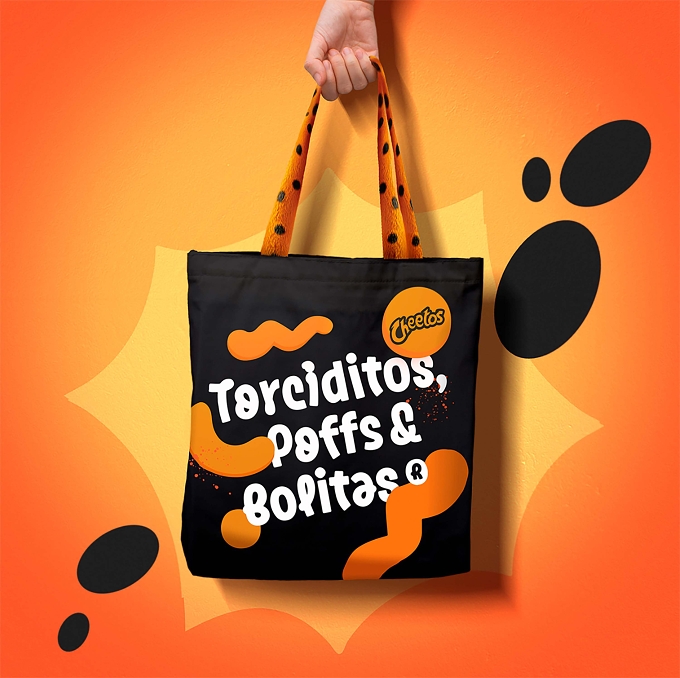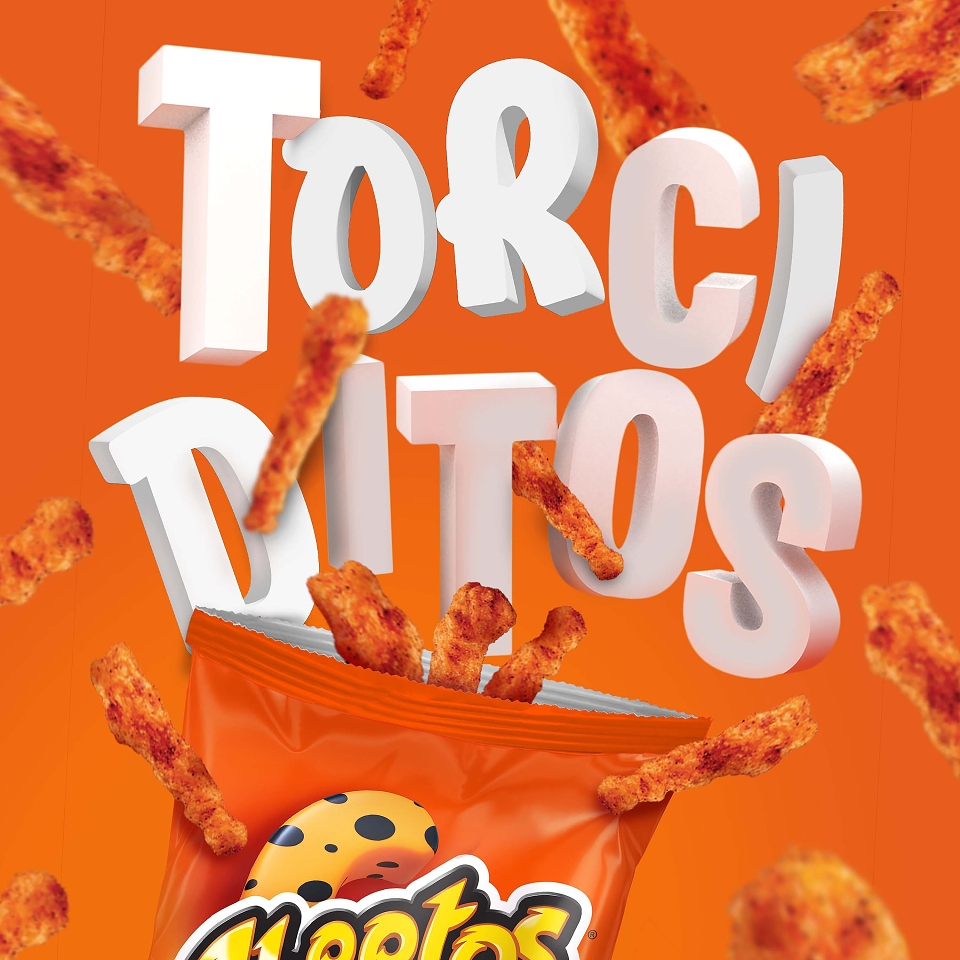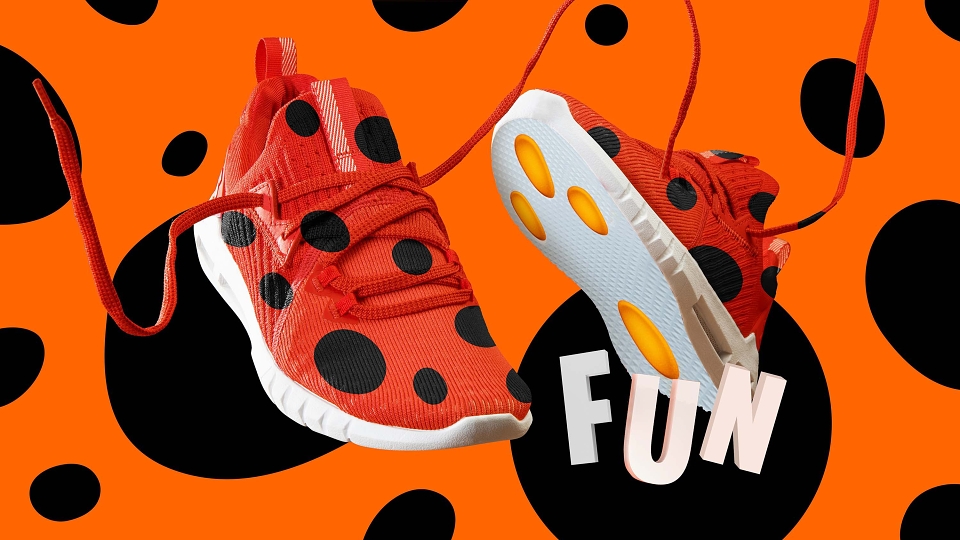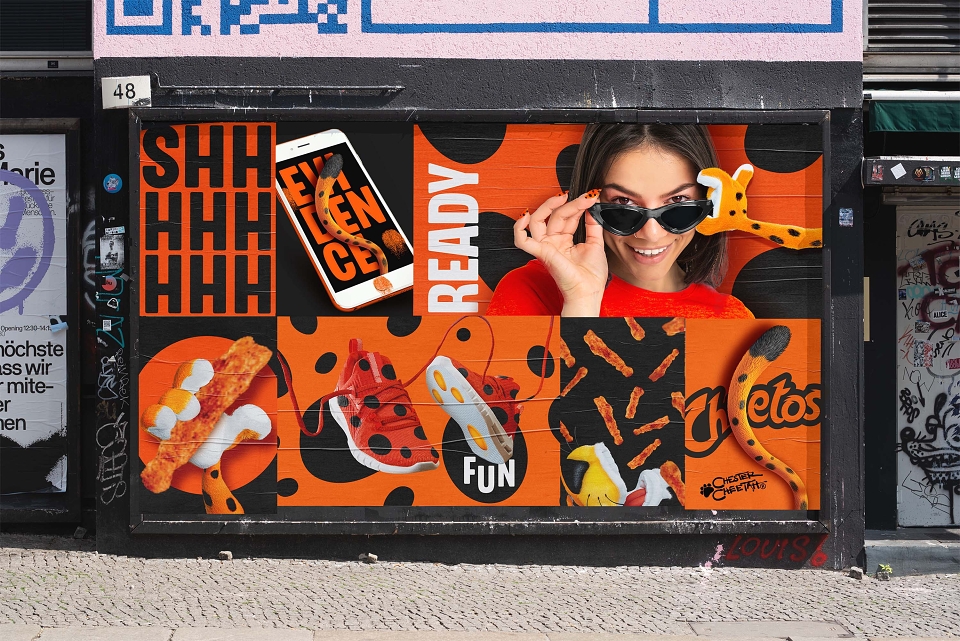
Over the past two years, Cheetos has undergone a rebranding journey for the Mexican market. It began with the Design Team completely redesigning Cheetos packaging, and creating a new Visual Identity that would help the brand to communicate across a variety of touchpoints. The team conceptualized a host of dynamic brand assets that would continue the inherent fun of the brand, and ensure it remained as irreverent and playful as Chester Cheetah himself.
Typography is a key element for building brand recognition, so we decided to develop a new, dynamic typography based on three different moments of fun people experience when snacking: expectation, enjoyment, and reward. With these concepts in mind, we teamed up with a partner agency who shared our vision to create a customized font that would convey the personality of Cheetos through every appearance of the text in a variety of communication formats. Together we built a display typeface, designed to be used for headlines and high impact messages, that could easily adapt to any touchpoint as needed.
In creating these typographic forms, we were inspired by the attributes of the actual Cheetos products themselves. So, we included a variety of light, condensed, rounded, irregular and curvy traits. It was important that this typography could adapt across all different forms of expression, while following the Cheetos ‘moments of fun’ concept. We divided the typeface into three stylistic variants: normal, curvy and mischievous. These three distinct type styles can easily be used separately or in mixed layouts to create more interesting and flexible typographic arrangements.
We also built this flexible typeface to work in very different situations, from animated sequences to 3D renders and more. Leaving no detail unconsidered, it even has a customized emoji set that adds entertainment and modernity to the brand, as well as personalized icons for the most important social networks, and text balloons that can be activated directly from the keyboard. Ultimately with this new typeface, we strengthened the ability for Cheetos to build brand recognition, and turn everything it touches into a fun and memorable experience.
Cheetos New Typeface